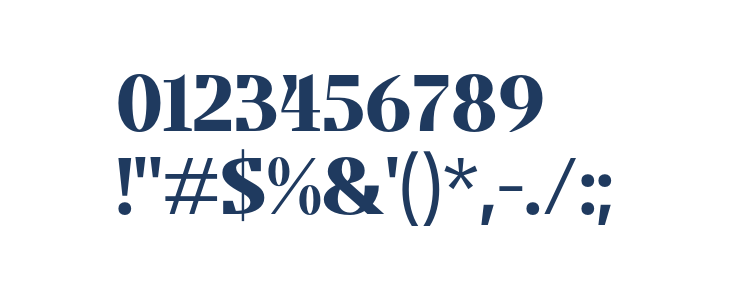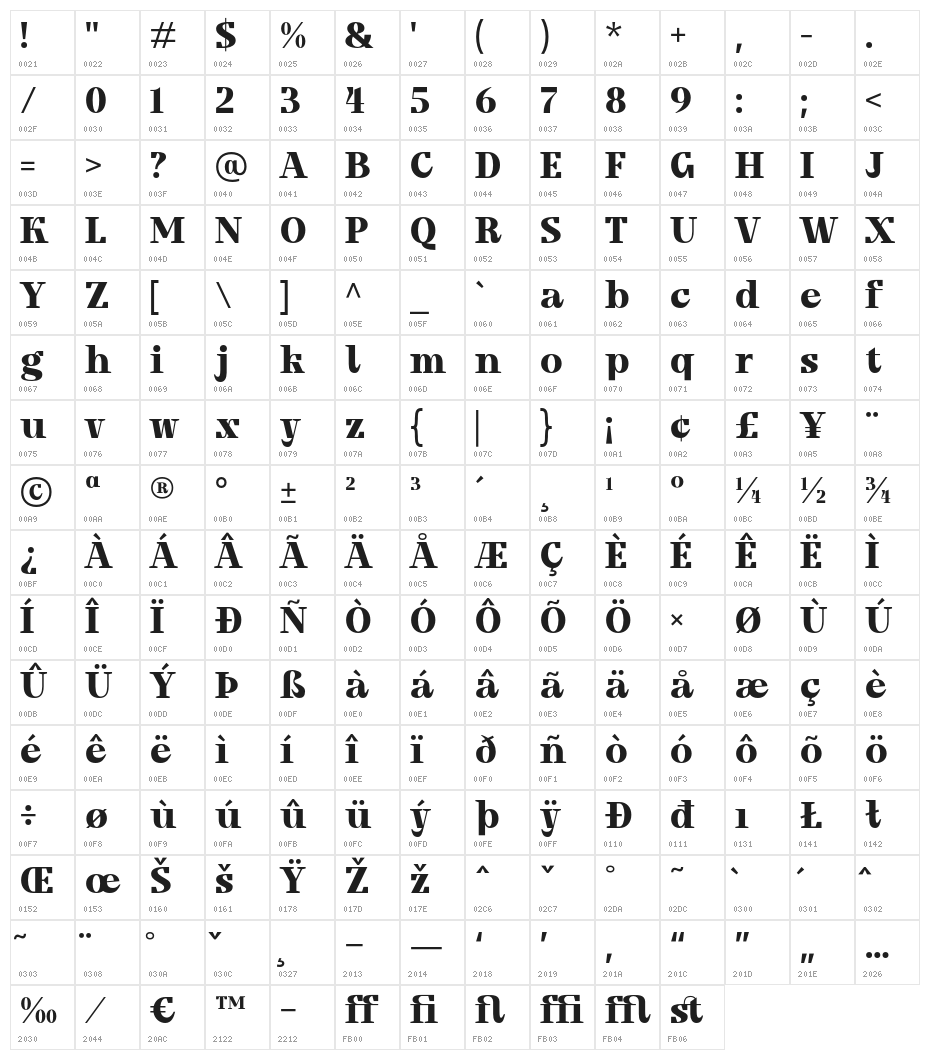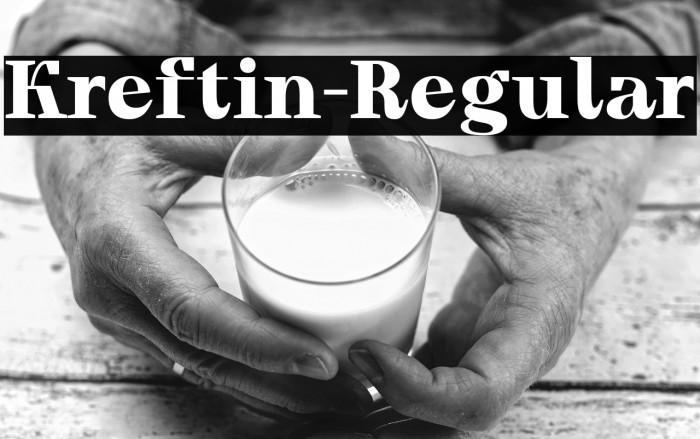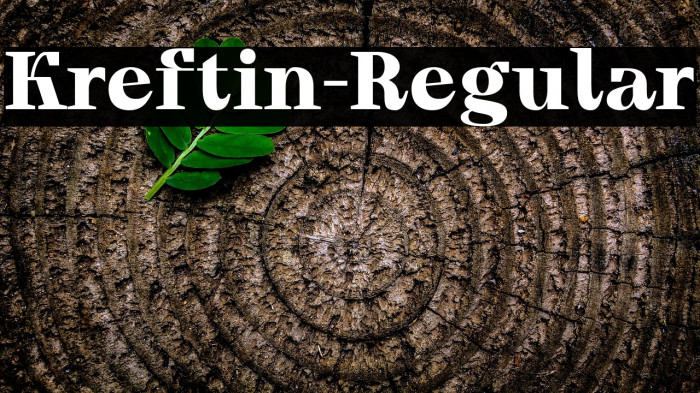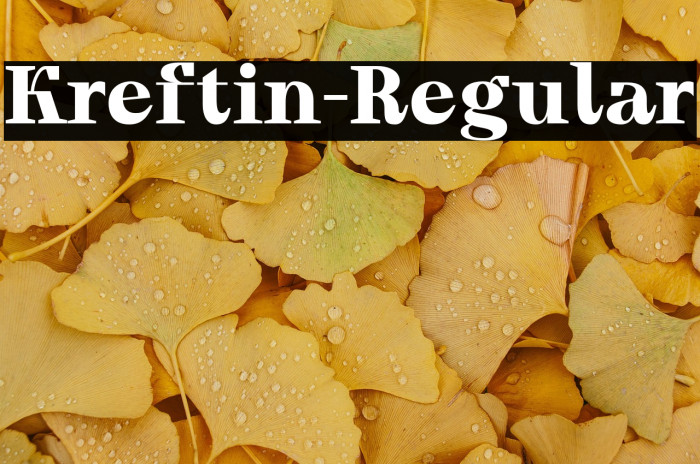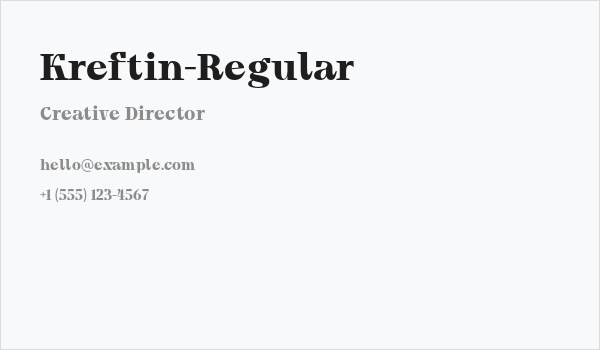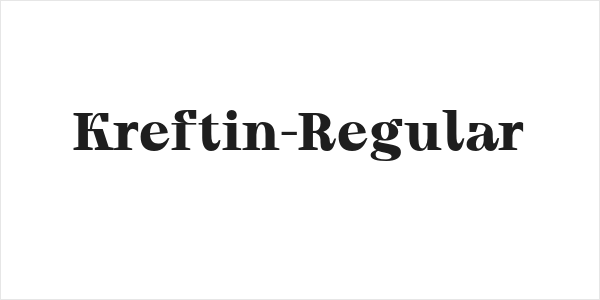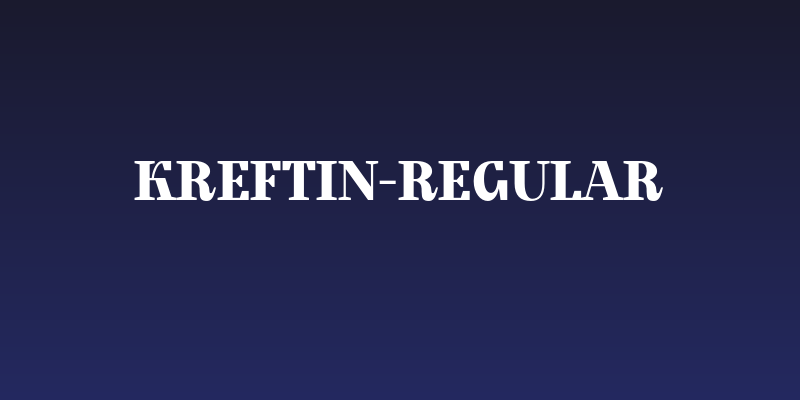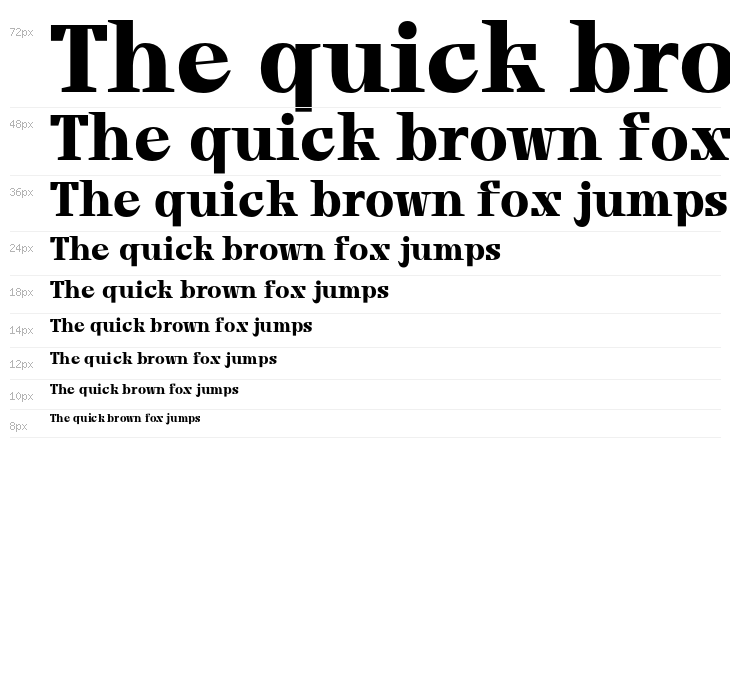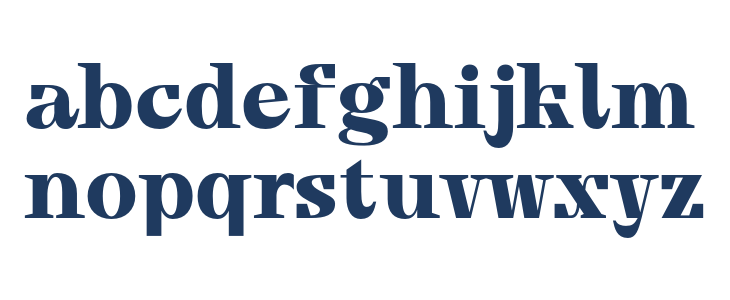
Kreftin-Regular Font
Kreftin-Regular Description
This font exhibits a bold and commanding presence with its strong, thick strokes and pronounced serifs. The uppercase letters are robust and slightly condensed, giving a sense of authority and confidence. The lowercase letters maintain a consistent weight, providing a harmonious balance between the characters. The numerals are equally bold, ensuring they stand out clearly in any context. Special characters are crafted with the same attention to detail, making them easily recognizable and functional. Overall, this font is designed to make a statement, combining traditional serif elements with a modern twist.